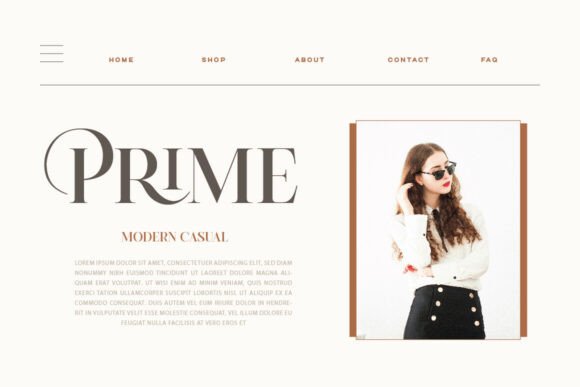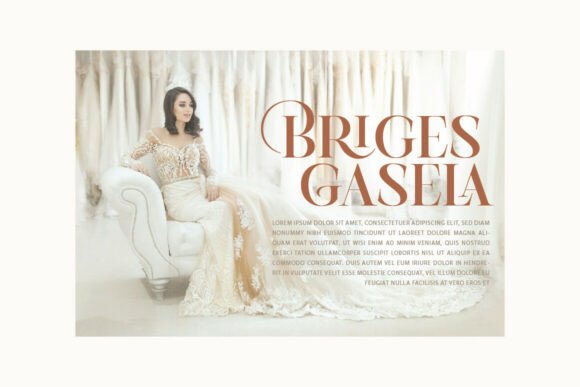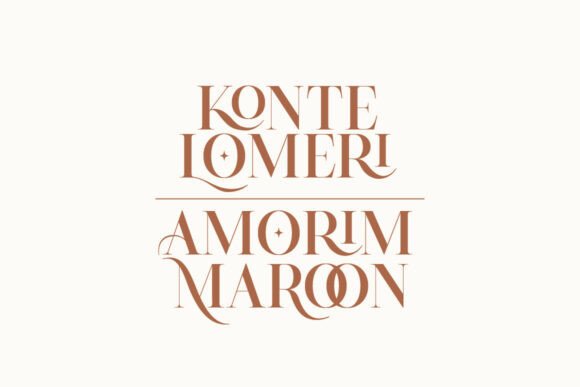
Introduction to Drose Font
Drose is a modern luxury serif typeface with stylish curves and refined high contrast details.
Designed to create an elegant and sophisticated visual presence, it is perfect for logos, fashion branding, editorial layouts, invitations, magazines, and premium packaging Classy, clean, and expressive, Drose brings timeless beauty to contemporary design.